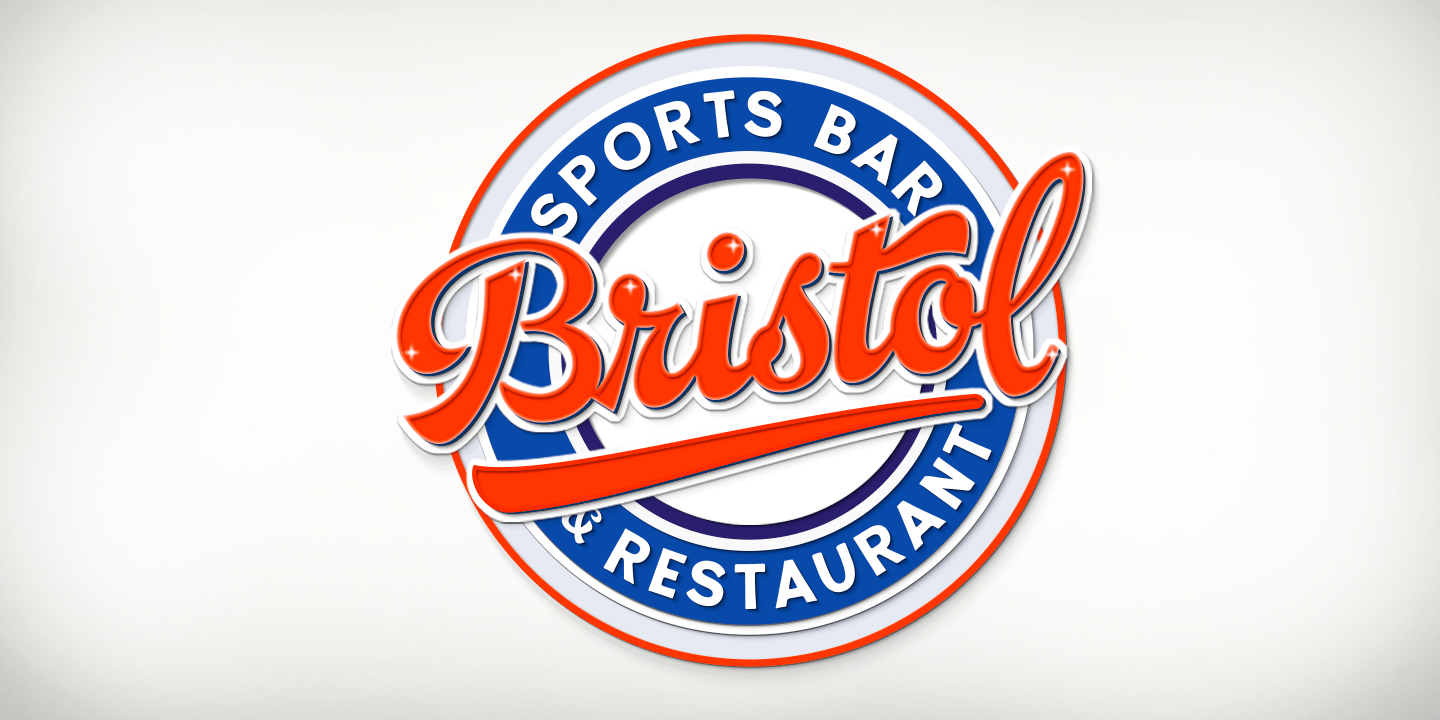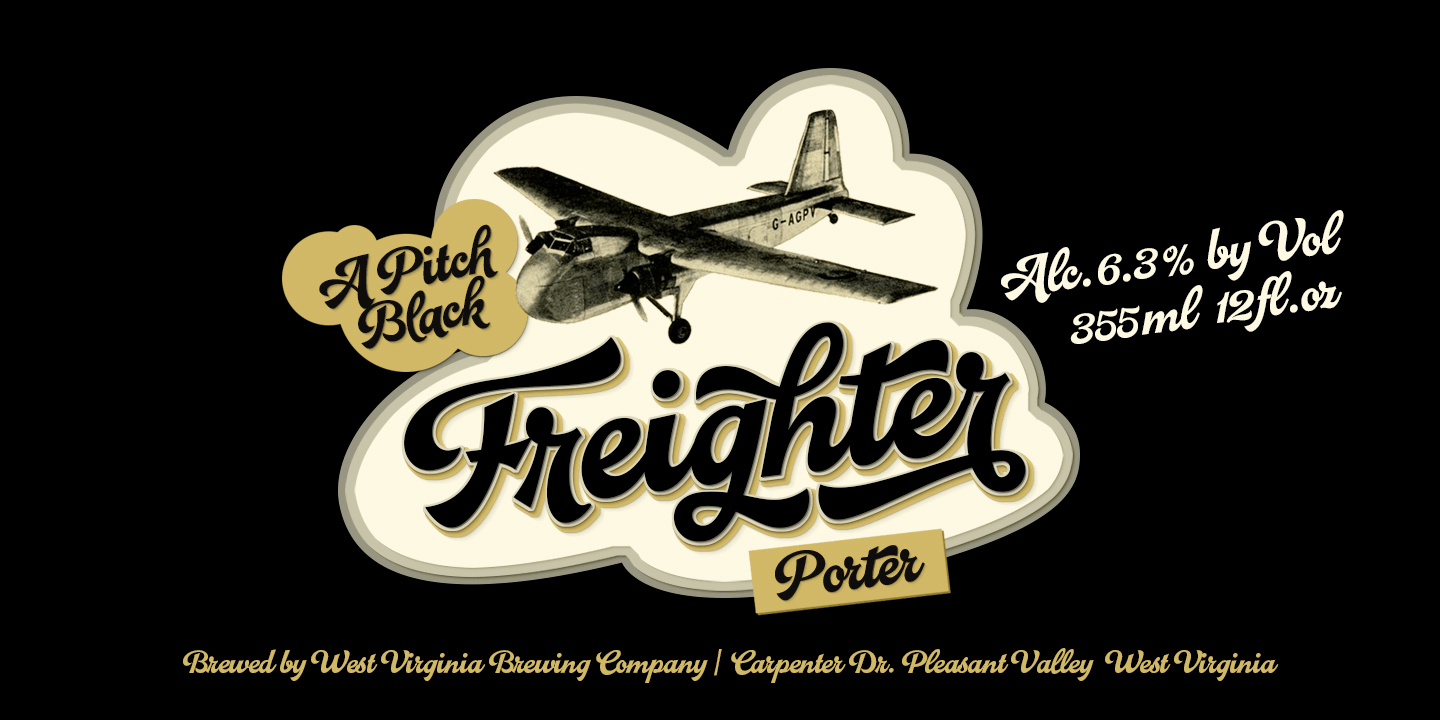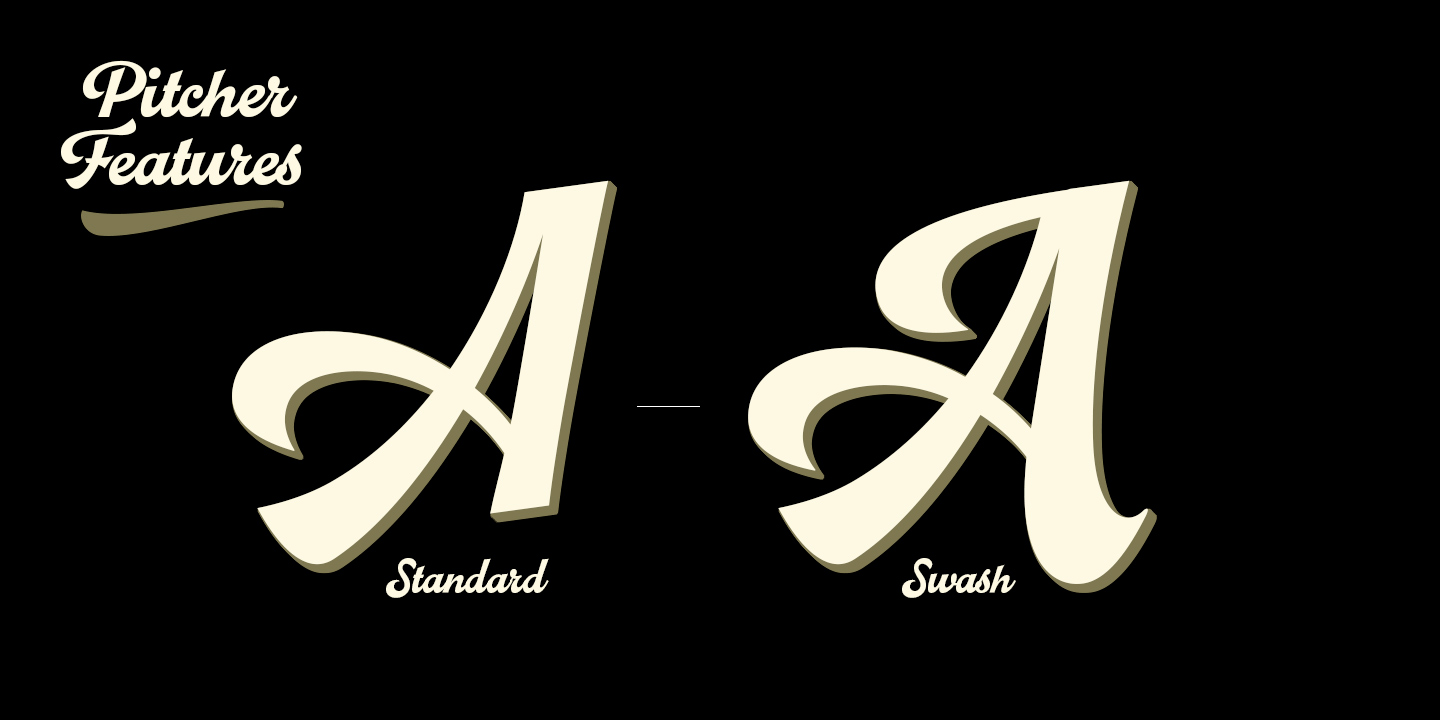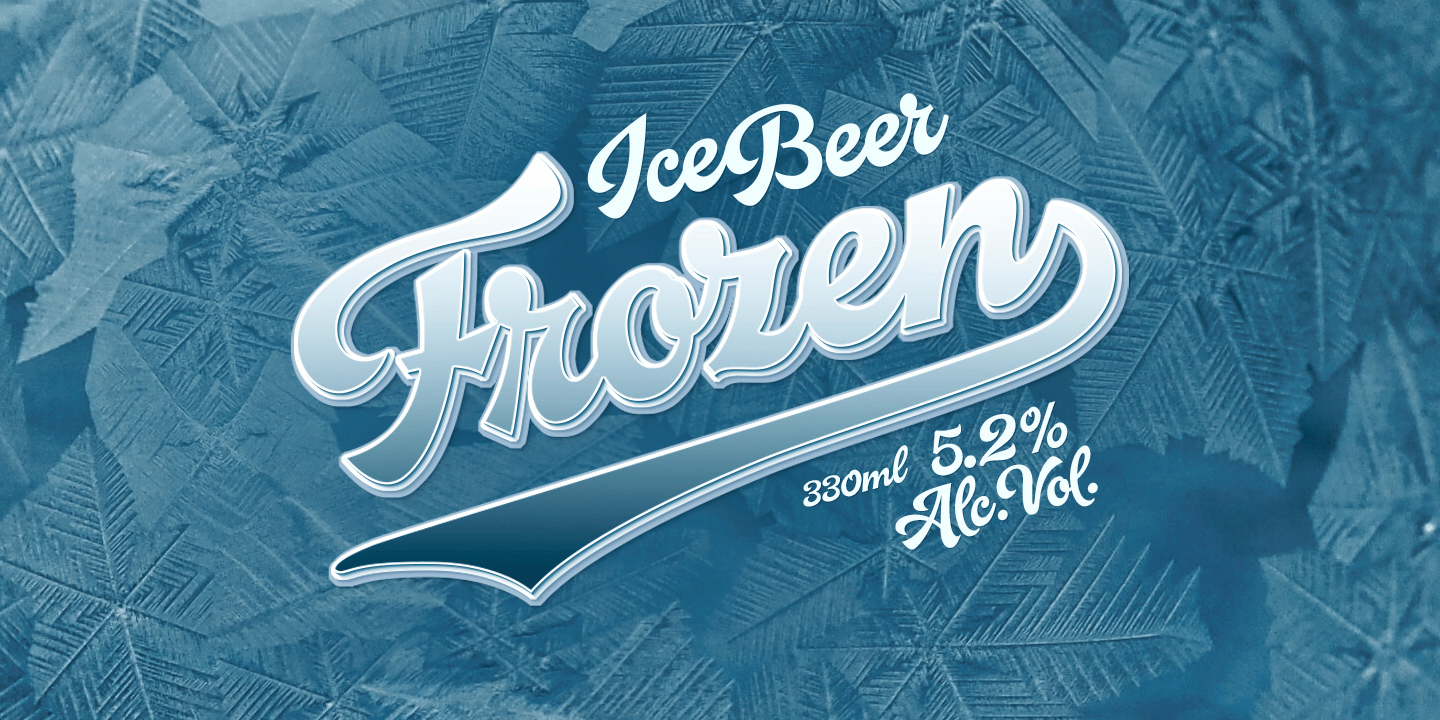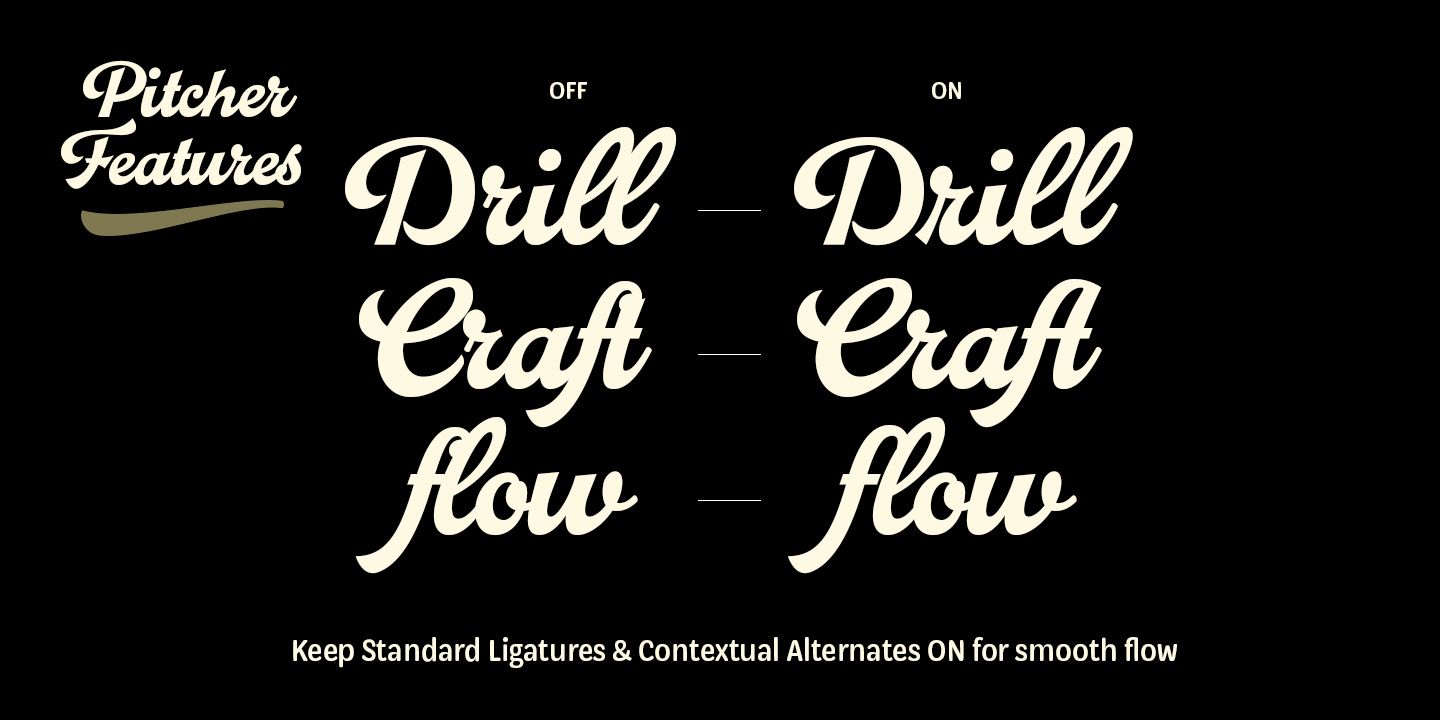
About Pitcher
Pitcher is a bold brush with roots in 1940s and 1950s Americana. It is great for a sports team or bar logos, beer labels, or anything where you need a strong, sturdy script with lots of character. Pitcher is equipped with several OpenType features – keep…